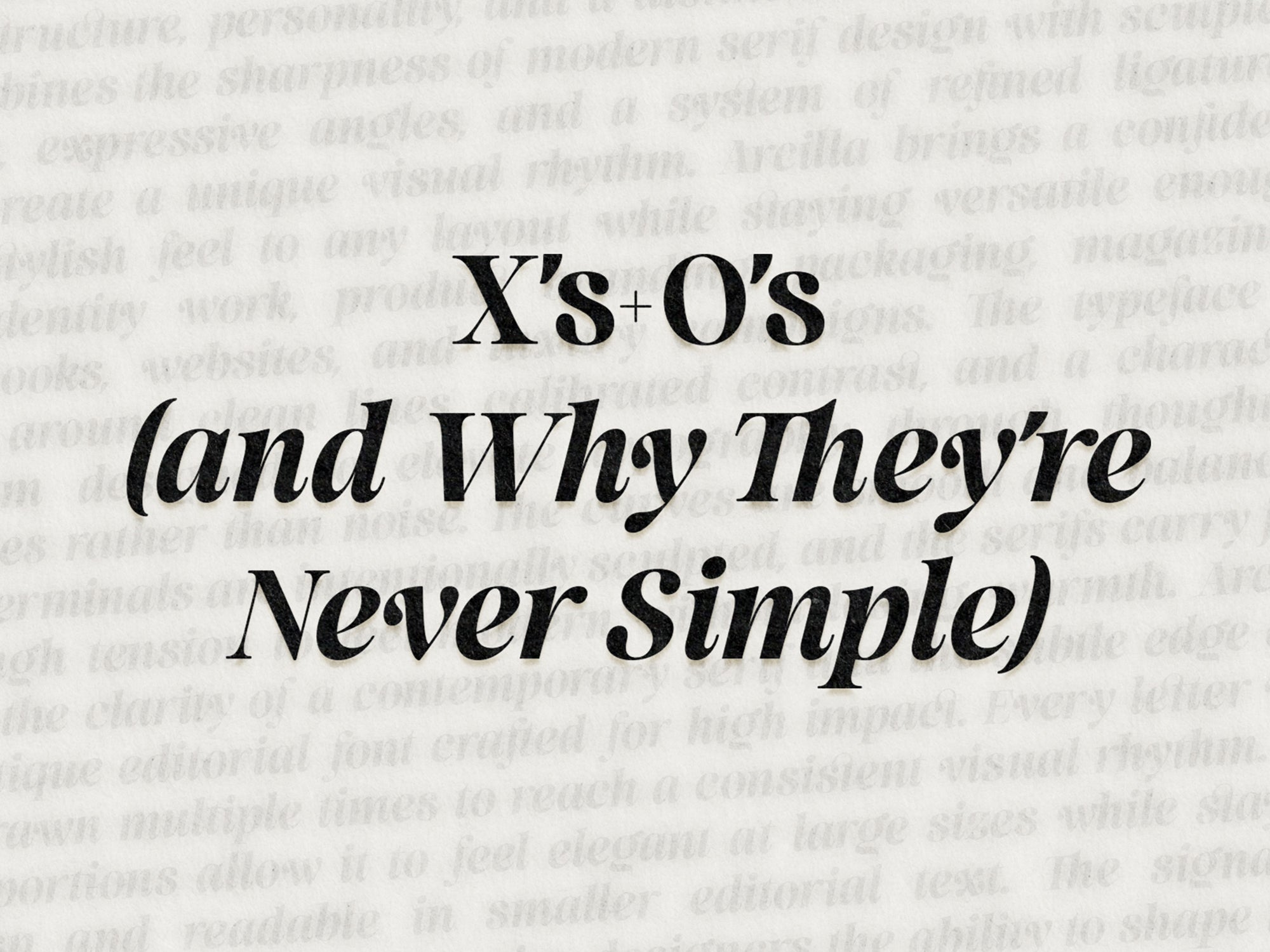
Why X and O Are Never What They Look Like
Three Optical Illusions Every Type Designer Has to Fix
At first glance, some letters seem almost too simple. Two lines crossing — a clean X. A perfect circle — the timeless O. But in the world of typography, those “simple” forms are two of the most deceptive shapes you’ll ever draw.
X and O are among the most corrected, adjusted, and discussed letters in type design. Not because they’re complex, but because our eyes don’t see geometry the same way a computer does. What looks mathematically correct rarely looks visually correct — and that’s where the magic of type design happens.
In this post, we’ll break down three optical illusions that every type designer constantly fixes to make typefaces feel balanced, natural, and beautifully human.
The X and the Poggendorff Illusion
The letter X might look like the easiest glyph in the world — two diagonal strokes that meet in the center. Except they don’t.
If you draw those lines so they intersect exactly at the geometric center, the X will look wrong. The top feels lighter, the bottom heavier, and the whole thing slightly off-balance. This happens because of the Poggendorff illusion, a quirk in human perception where diagonals appear misaligned when interrupted or crossed. Our eyes misjudge where those lines “should” meet.
So what do type designers do? They cheat — on purpose.
Designers shift the intersection slightly upward, just a touch, until the X feels optically centered. You don’t notice the adjustment, but you’d instantly feel it if it wasn’t there. That’s why the X is often used as a balance test in type design. If the X looks stable, the rest of the alphabet usually follows suit.
Why the O Is Always a Bit Taller
The O is the ultimate optical illusion in typography.
A perfect circle drawn to match the height of the capital H will always look too small. Round shapes appear smaller than flat ones — our eyes pick up on corners and verticals more strongly than curves.
To fix this, designers use overshoot — extending the O slightly above the cap height and below the baseline. Usually by only a few percent, yet it makes all the difference.
Without overshoot, the O feels undersized and timid. With it, the letter finally aligns visually with the surrounding shapes.
This isn’t just about O, of course. The same principle applies to curved letters like C, G, S, and Q — but the O makes it most obvious. Every good typeface depends on this subtle illusion.
Why the O Is Also Heavier Than It Looks
There’s another illusion hiding inside every O: its curves look thinner than straight lines, even when both have the same stroke thickness.
So if you draw an O to match the vertical stem of an H, it will appear lighter and weaker. That’s why designers intentionally thicken the curves of round letters — to balance the visual weight.
This optical correction isn’t decoration. It’s structural. The heaviest parts of the O aren’t perfectly symmetrical either — the weight subtly shifts as the curve moves around, helping the letter feel balanced and harmonious within the rhythm of a word.
When done right, you never see the adjustment. You just feel that everything looks “right.”
The Bigger Lesson: When Geometry Isn’t Enough
The X and O reveal one of typography’s most fundamental truths: Visual harmony and mathematical precision are not the same thing. Good type design is never about perfect geometry. It’s about how our eyes read shapes in context — next to other letters, across words, and throughout text blocks.
The best adjustments are invisible. They’re what make a typeface feel calm, confident, and effortless. And once you know they exist, you’ll start spotting them everywhere.
You’ll never look at an X or an O the same way again.